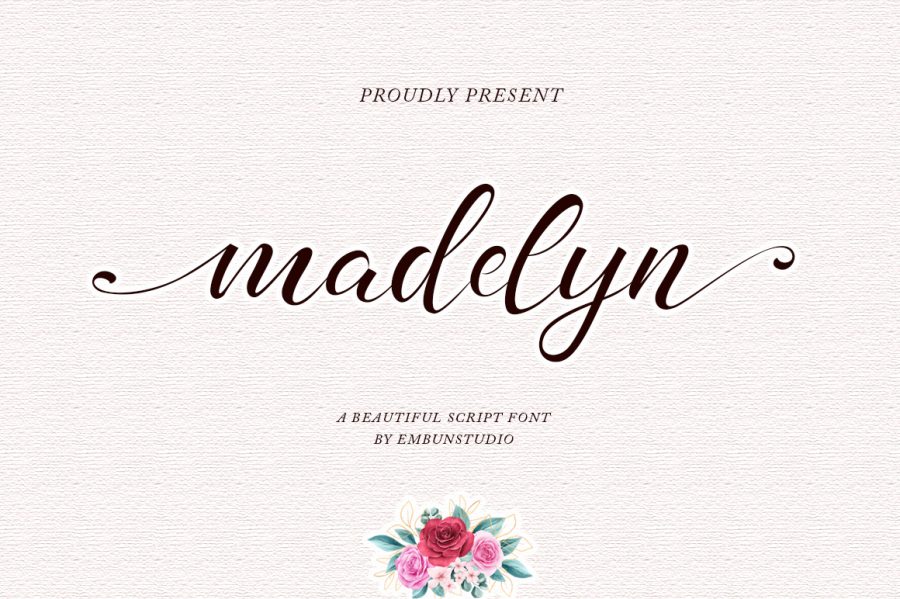
Free Demo Madelyn Chic Script Font
Free Demo Madelyn Chic Script Font is a Script font with a modern calligraphy style. It comes with 270 glyphs and offers a beautiful stylistic alternate for your project that needs a chic taste. This font is also suitable for your projects such as wedding invitation, business card, souvenir, logo, and many more. However, this free font is a personal use license, buy the premium for more features.